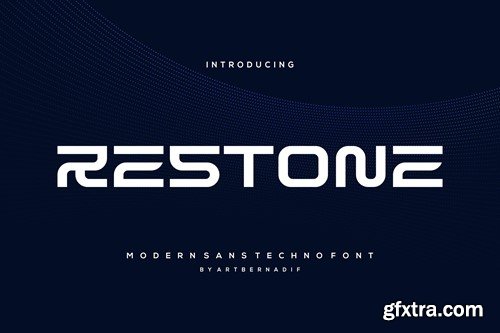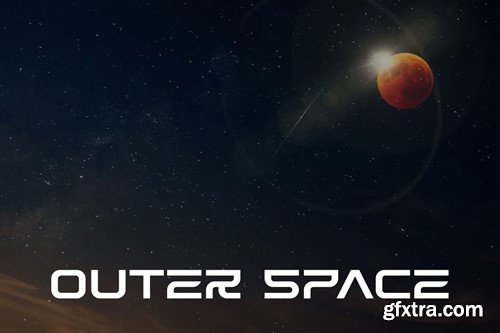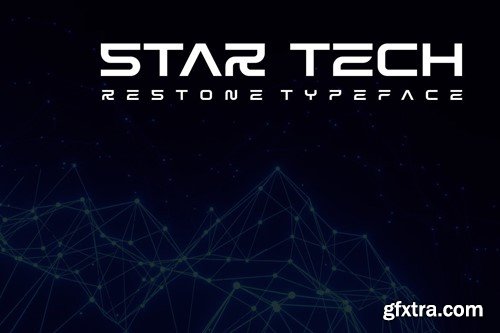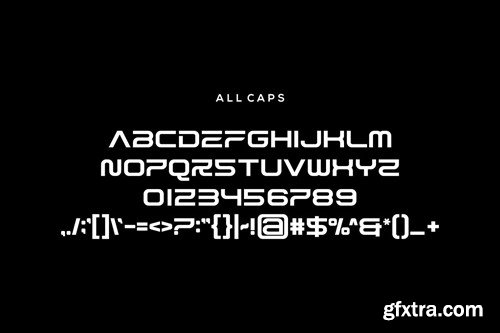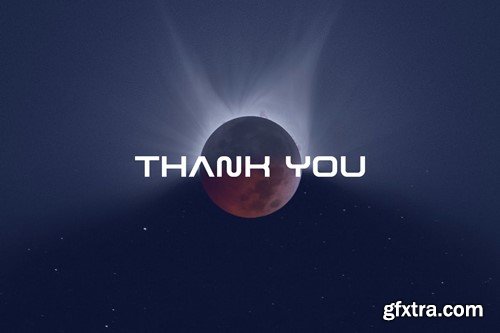
现代Sans技术字体U2D9Y6M
Restone - Modern Sans Techno Font U2D9Y6M
Restone - Modern Sans Techno Font
Introducing our new product Restone Font - Modern Sans Techno Font
Restone Font - Modern Font is a bold and authentic display font. The font is suitable for any branding project like logo, t-shirt printing, esport, and many more. outstanding in a wide range of contexts.
• Restone Uppercase